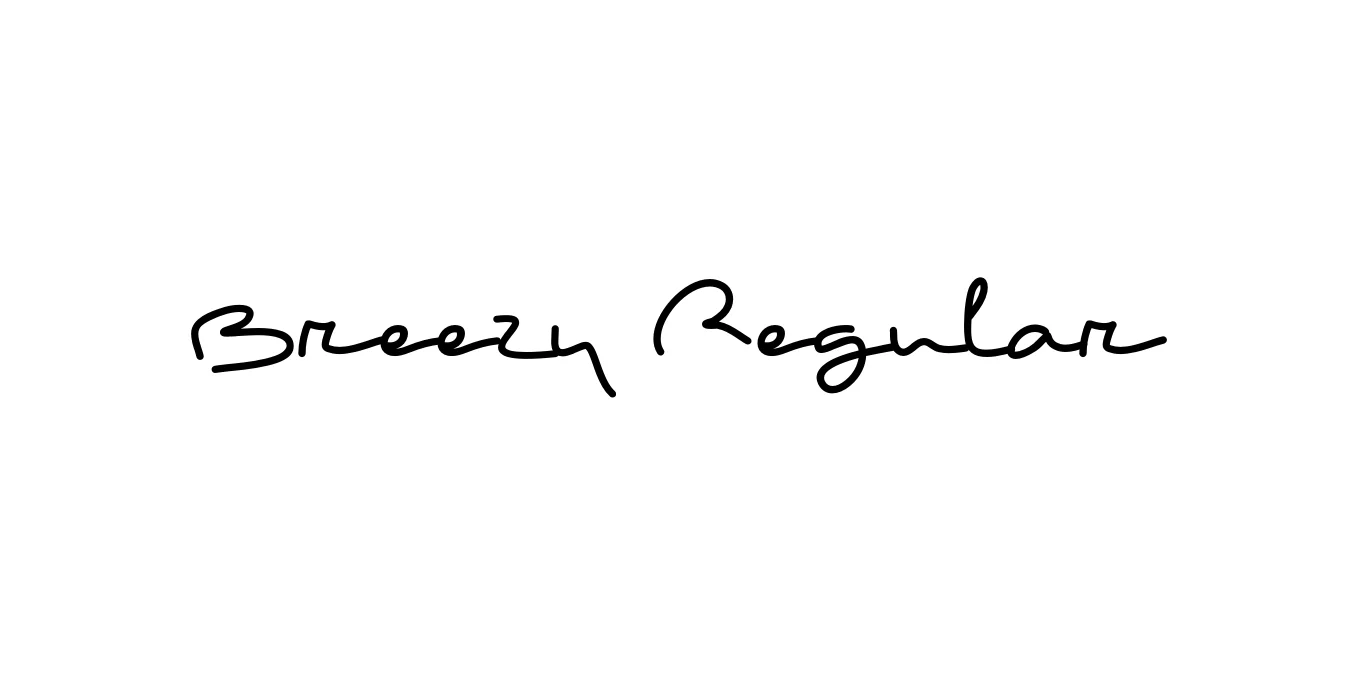
Breezy Regular
Designed by Graptail
Breezy Regular is a contemporary script typeface designed to evoke a sense of fluid movement and organic warmth. Characterized by its relaxed brush strokes and gentle curves, this font captures the essence of modern calligraphy while maintaining a high degree of legibility. It was crafted to provide a human touch to digital designs, moving away from rigid geometric structures toward a more approachable, hand-drawn aesthetic.
The typeface is particularly noted for its rhythmic flow, which makes it ideal for projects that require a light-hearted or artisanal feel. Breezy Regular features carefully balanced letterforms that ensure a cohesive look across various platforms. Whether used in print or on the web, its unique personality helps brand identities stand out by conveying a sense of friendliness and creative spontaneity.
Breezy Regular Best Uses
Creating engaging and personal Instagram stories or quote posts.
Developing a unique and approachable visual identity for small businesses.
Adding a warm, custom feel to wedding invitations and party announcements.
Applying to artisanal product labels for an authentic, handcrafted look.